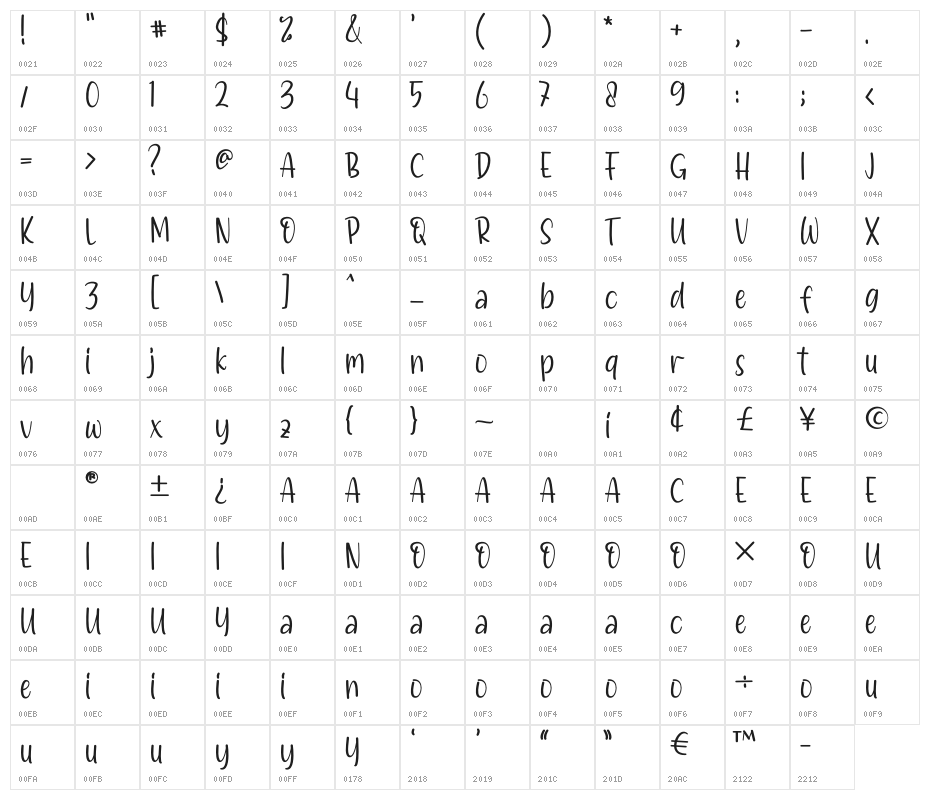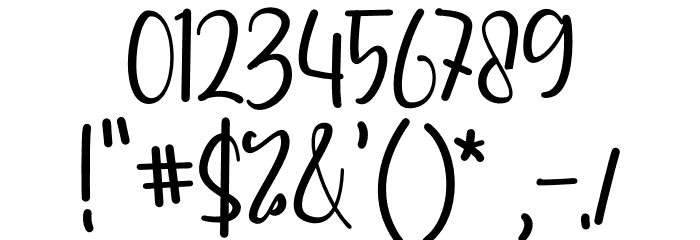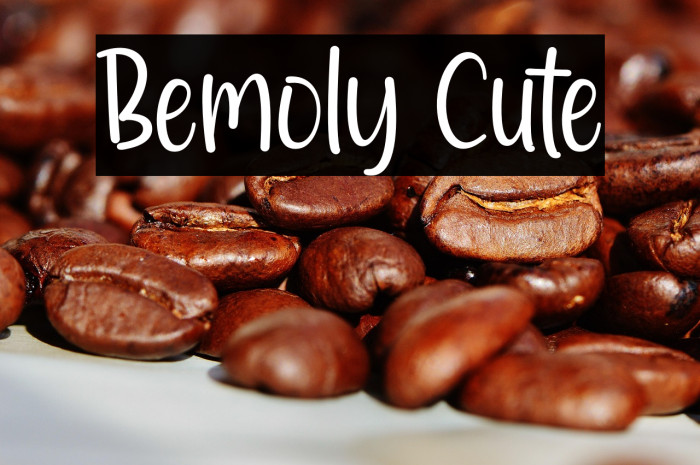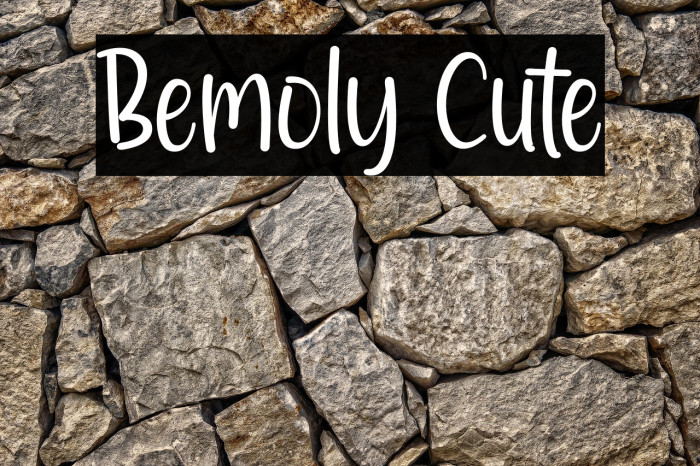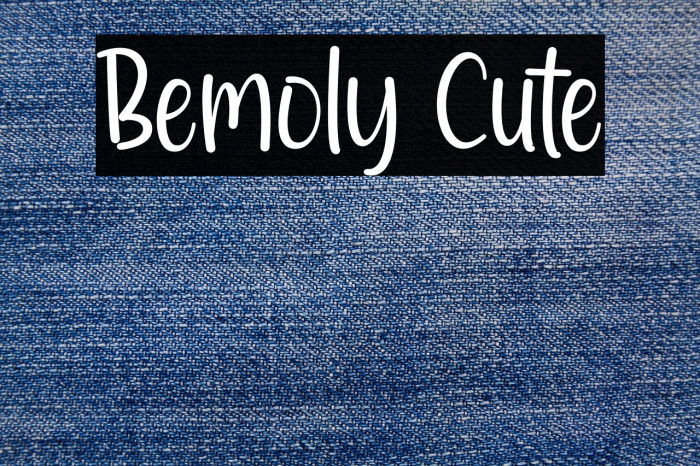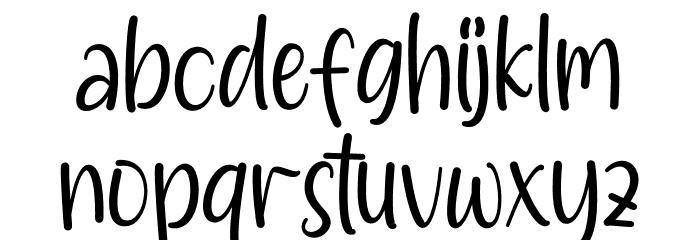
Bemoly Cute Font
Bemoly Cute Description
This playful and whimsical font features a handwritten style with a smooth, flowing appearance. The characters are slightly elongated with rounded edges, giving a friendly and approachable feel. The uppercase and lowercase letters maintain a consistent style, with a slight slant that adds to the casual aesthetic. The numbers and special characters are designed to match the overall playful theme, making them suitable for creative projects. The font's unique charm makes it ideal for designs that require a personal touch.
| Use Case | Headlines, Logos, Social Media |
| Proposed Projects | Ideal for children's books, greeting cards, playful branding, and social media graphics. |